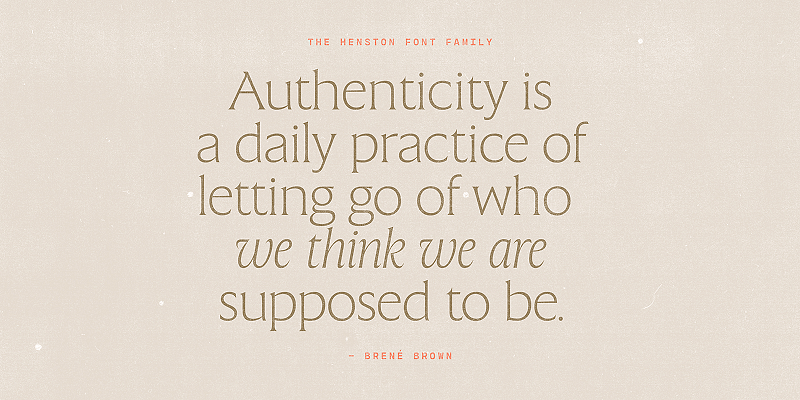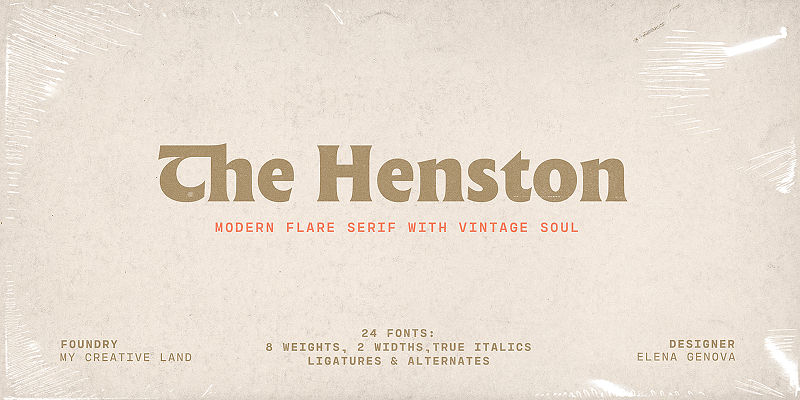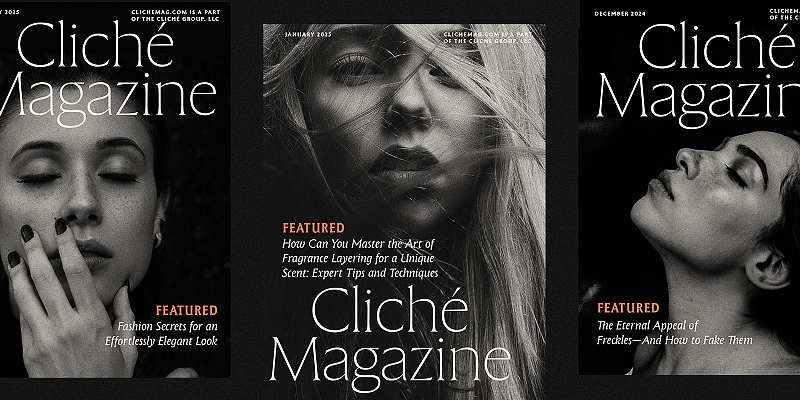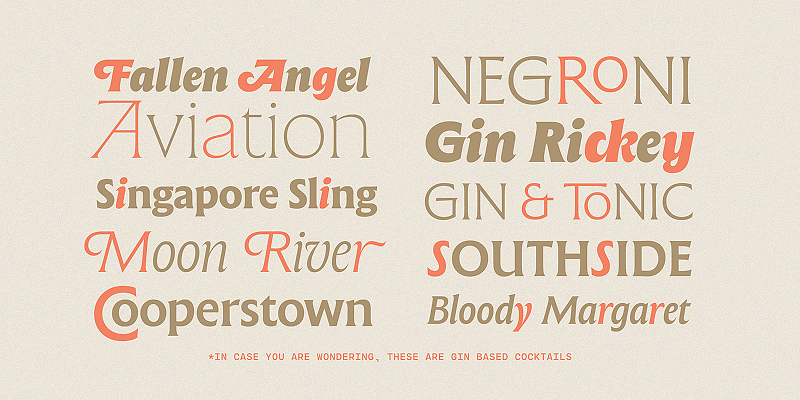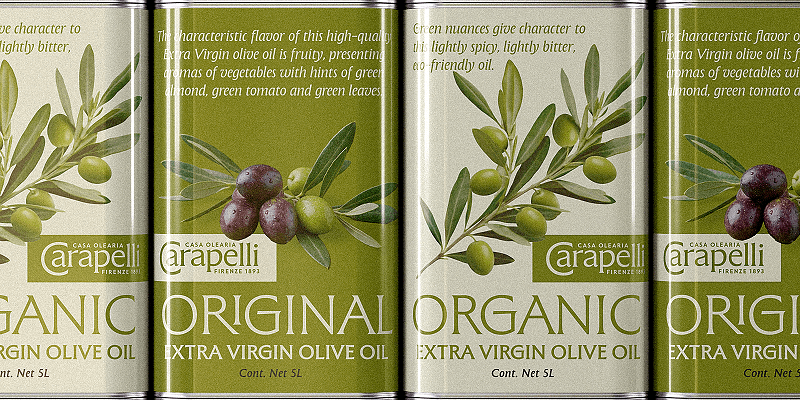
The Henston is a flared serif font family inspired in part by incised letterforms, such as Berthold Wolpe’s Albertus and Hermann Zapf’s Optima. Its subtle shaping is ideal for display, yet the open forms maintain legibility at subhead and text sizes. The companion italics take cues from calligraphy, while a well-chosen selection of ligatures, swash capitals, alternates, and stylistic sets offers ways to shift the voice beyond the standard forms. The Henston will add warmth to brands, websites, magazines, and book covers alike. Available in two widths, each with eight weights — Thin to Black. Regular also includes true italics.